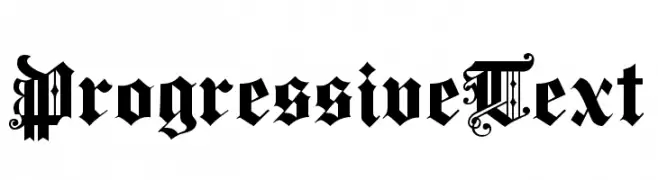
A bold, blackletter-style font with sharp, angular lines and intricate detailing.
A classic blackletter font with ornate, gothic letterforms.
A bold, gothic-inspired font with sharp, angular lines and a medieval touch.
A bold, gothic-inspired decorative font with intricate details and a medieval flair.
An ornate Blackletter font with intricate detailing and bold strokes.
A traditional blackletter font with intricate details and a medieval aesthetic.
An ornate Blackletter font with bold, angular lines and elaborate flourishes.
An ornate, Gothic-inspired decorative font with intricate floral designs.